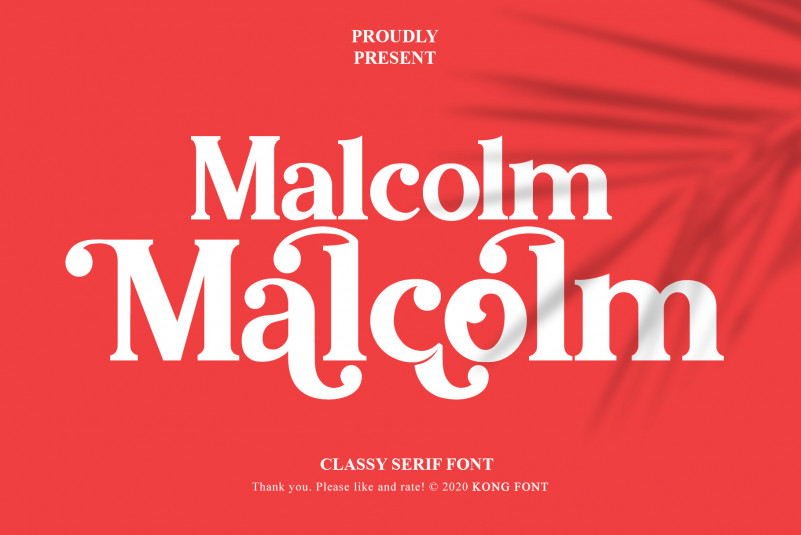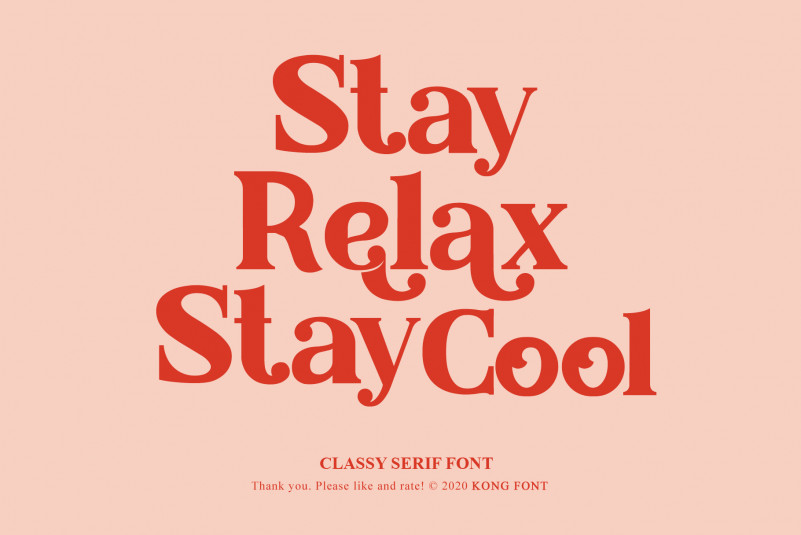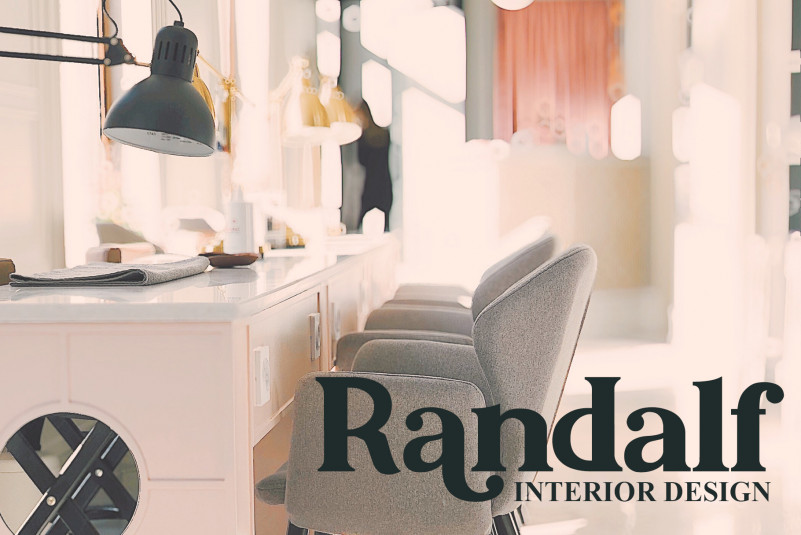
Malcolm Serif Typeface
Introducing our New Font, very suitable as to make adorable invitation for wedding, birthday, special day. A collection of letters and numbers suitable your projects also great for Logotype, Branding Design, Logo Design, Digital Lettering Arts, T-Shirt/Apparel, Poster, Magazine, Signs, Advertising Design, and also perfect for your other projects branding.